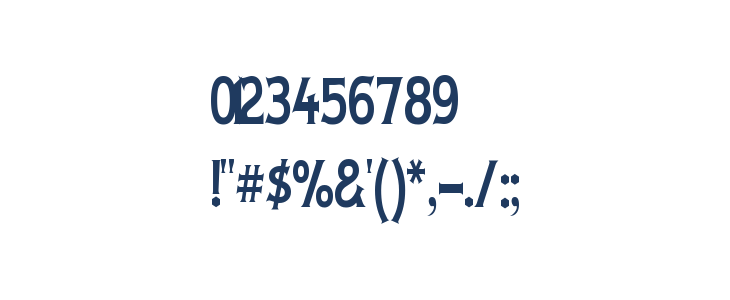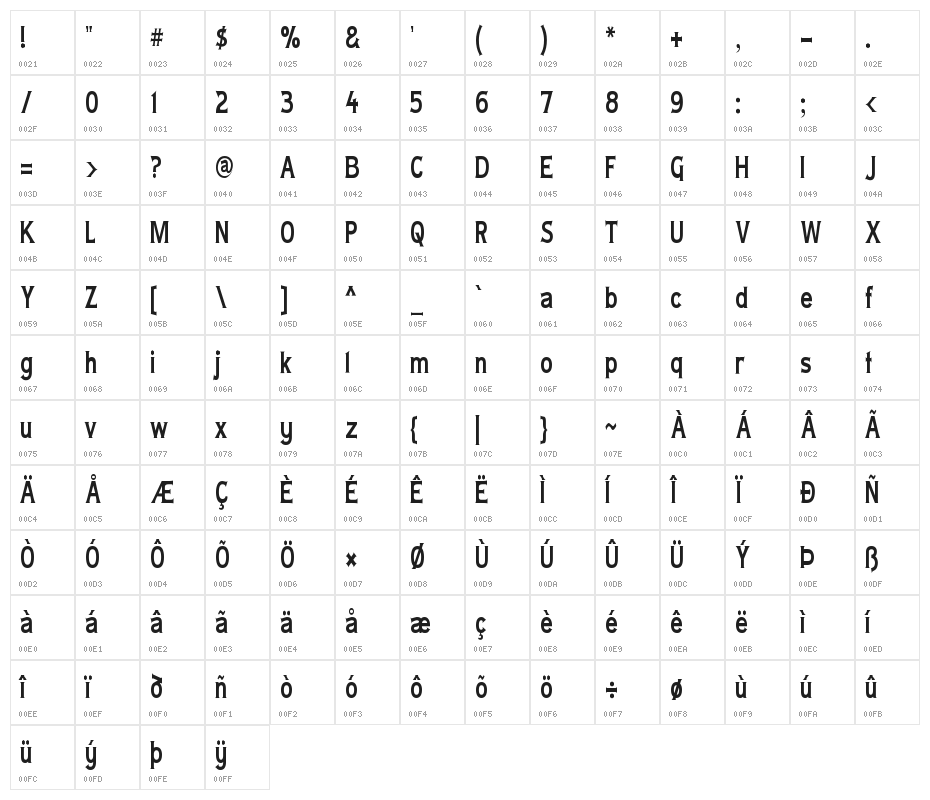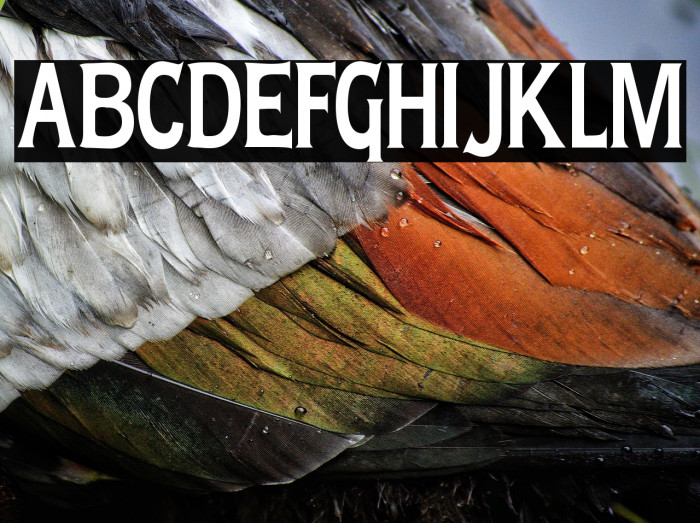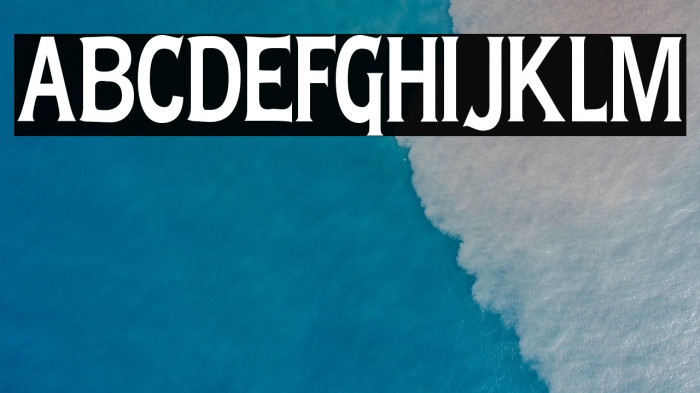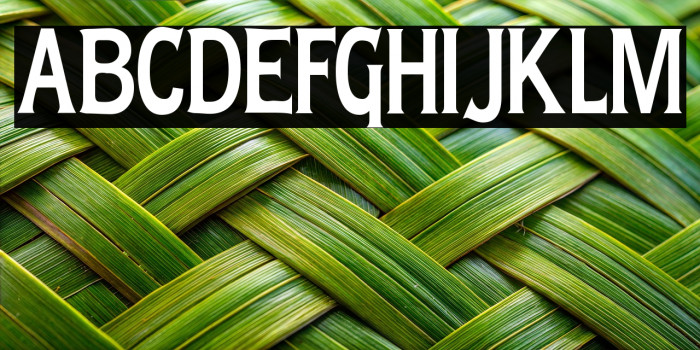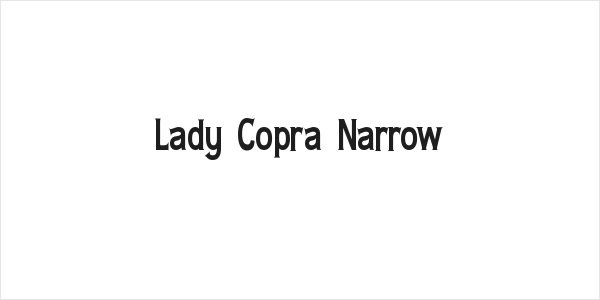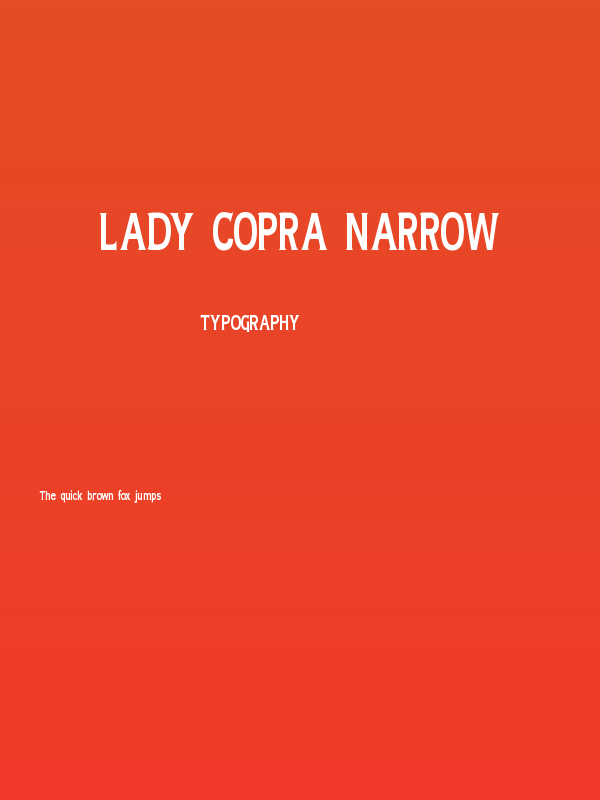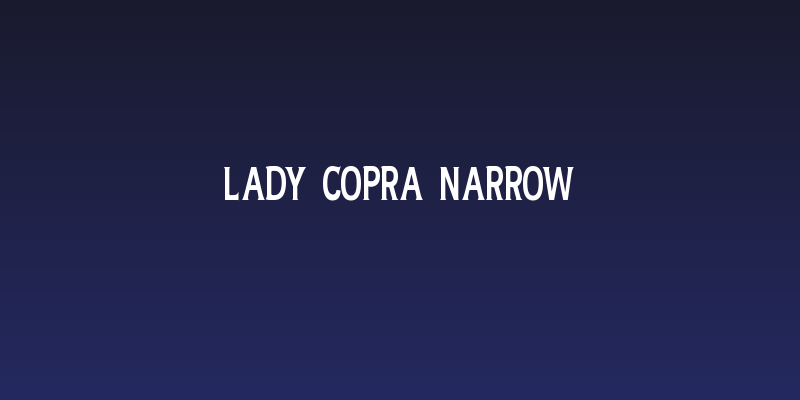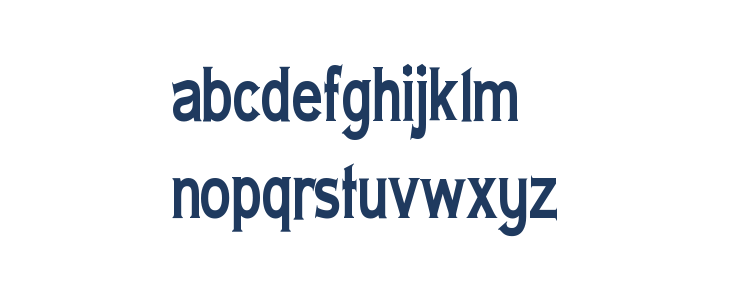
Lady Copra Narrow Font
Lady Copra Narrow Description
This font features a bold and narrow design with a strong presence. The uppercase letters have a distinct, slightly condensed form, giving them a commanding appearance. The lowercase letters maintain a consistent style, complementing the uppercase with their own narrow structure. The numerals are clear and legible, with a uniform width that matches the overall aesthetic. Special characters are well-defined, adding versatility to the font. The strokes are consistent in thickness, providing a balanced look that is both modern and classic.
| Proposed Projects | Ideal for headlines, posters, branding, and any project requiring a bold statement. |